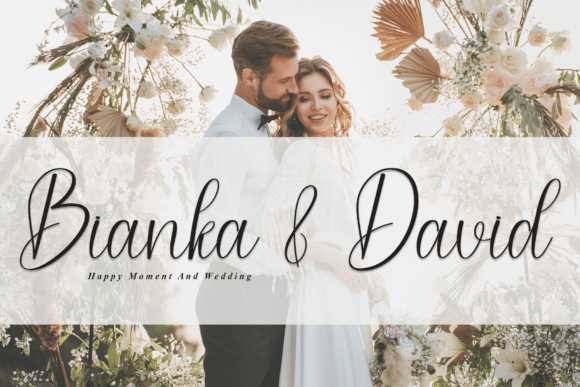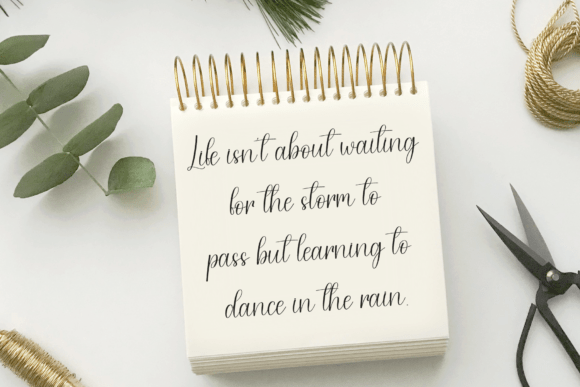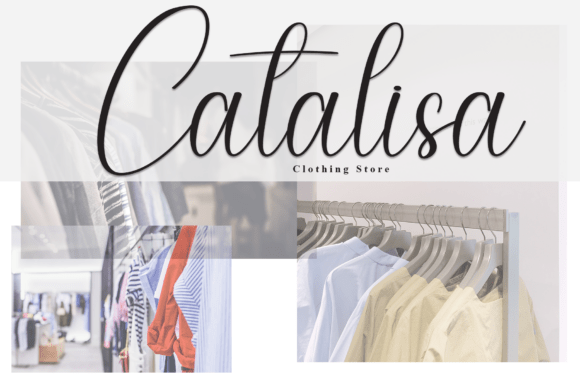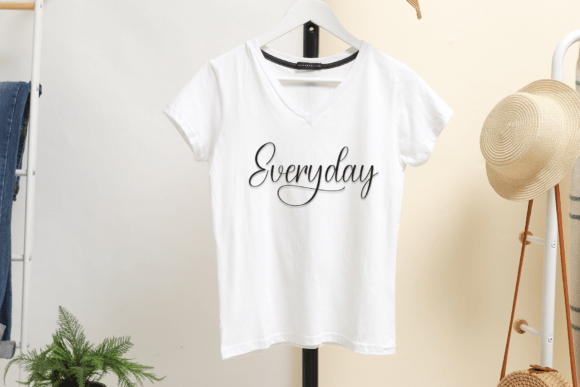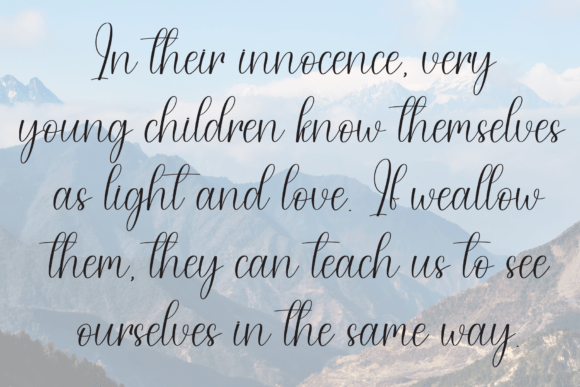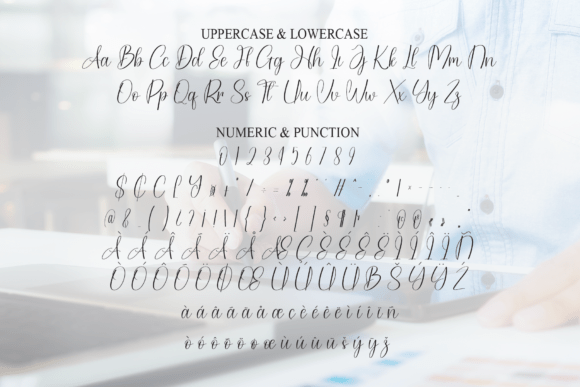
Unlocking the Art of Elegant Typography
As a designer, you’ve probably had that moment when a font just clicks – you’re brainstorming ideas for a wedding invitation, and suddenly, the perfect script font appears, elevating your design from ordinary to extraordinary. That’s exactly what happens when you discover the Autography Font, a beautiful, flowing script font that adds a touch of sophistication to any project.
Whether you’re working on a branding campaign, social media graphics, or a heartfelt quote, Autography Font is the perfect companion. Its smooth curves and elegant swashes bring a personal and stylish flair to your design, making it stand out from the crowd. With Autography Font, you can create beautiful, handwritten-like text that feels like a signature – hence the name, Autography Font – and leaves a lasting impression on your audience.
Key Features of Autography Font
- Font Family: Autography is a unique, hand-written font family that includes 6 styles, ranging from casual to formal.
- Font Size: Autography is designed to be used at a medium to large font size, typically ranging from 14 to 36 points.
- Unique Characteristics: The font features subtle imperfections, giving it a natural, hand-written feel that is perfect for creative and personal projects.
Review: Autography Font
As a designer, I was excited to dive into the Autography Font and see what it had to offer. Overall, I was impressed with its unique style and flexibility.
- Cursive flair: Autography Font has a beautiful, flowing cursive style that’s perfect for adding a touch of elegance to your designs.
- Customization options: The font includes a range of styles and weights, allowing you to customize the look to suit your needs.
- Pairing potential: Autography Font pairs well with a variety of other fonts, making it a great addition to any design project.
- Readability at small sizes: While the font is beautiful, it can be difficult to read at small sizes, which may limit its use in certain applications.
- Lack of italics: The font does not include italic styles, which may be a drawback for designers who rely on italics to add emphasis.
Overall, I would recommend Autography Font to designers looking for a unique, high-end font for their projects. While it may have some limitations, its strengths make it a valuable addition to any design library.
Tips for Getting the Most Out of Autography Font
Experiment with different font sizes and styles to create visual interest. Use Autography font for headings or titles to add a touch of elegance. Consider pairing it with a clean sans-serif font for body text.
Autography font is ideal for:
- Formal event invitations
- High-end marketing materials